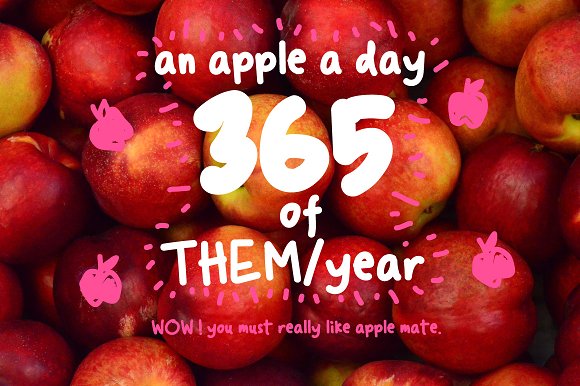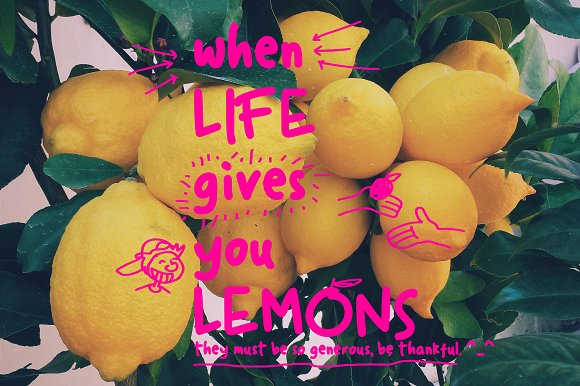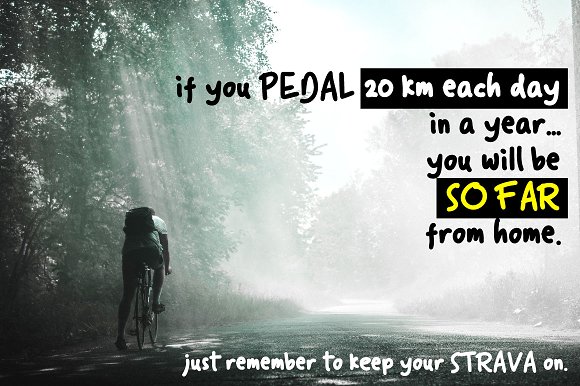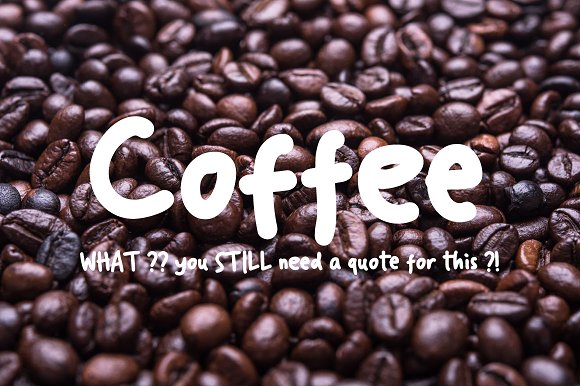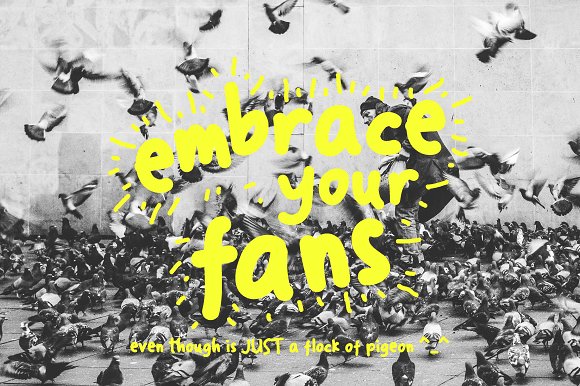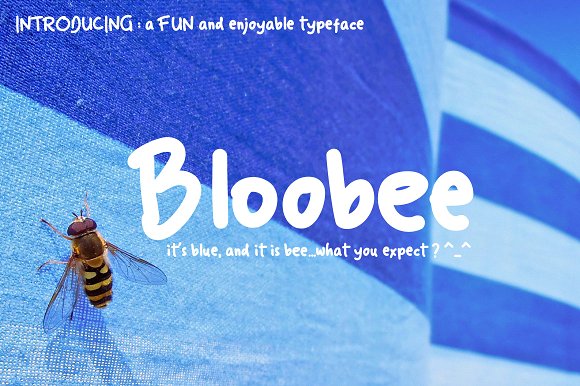
Bloobee Font
Bloobee a fresh and enjoyable typeface. with light bounce on each letter, gives you an energetic, friendly, and energy in every word you have.